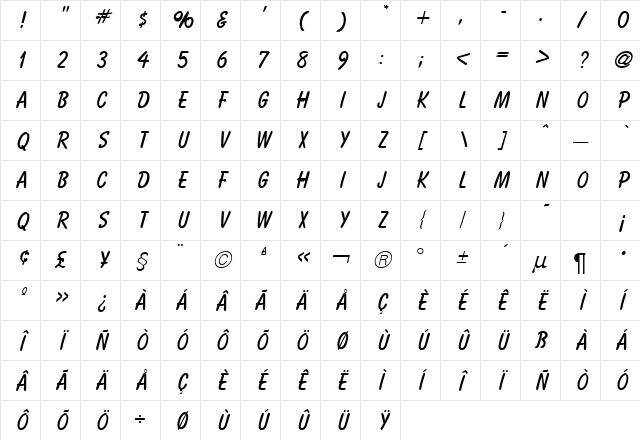
Complete BalloonTwo Regular glyph index. Displaying only characters natively supported by BalloonTwo Regular font.
BalloonTwo is a composed and adaptable typeface that performs quietly and consistently across a wide range of design contexts.
Pro Tip: Use BalloonTwo in both headline and body roles to test its range before committing to a single application.